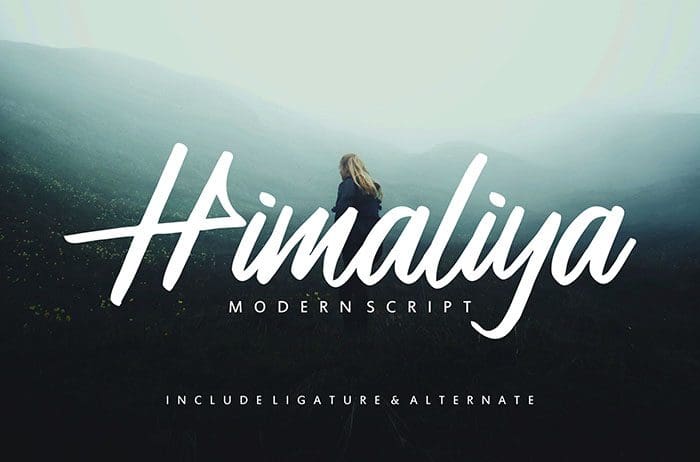
Himaliya Script Font
Himaliya is a modern and sleek script font with a smart twist. Get inspired by its contemporary charm. Thanks to Vunira Studio for sharing this font! Take a look at this portfolio for more of his stunning fonts.